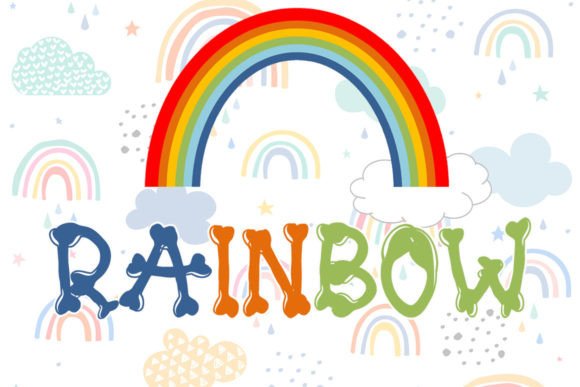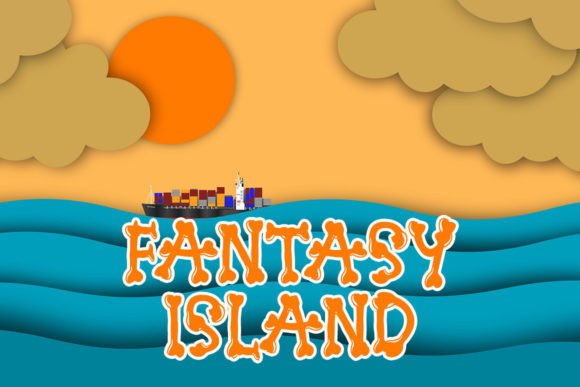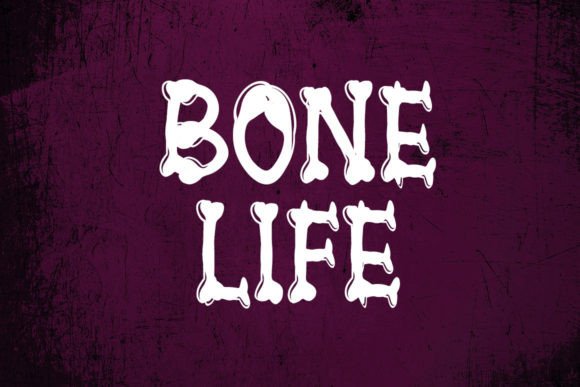
Discover the Joy of Design with Artistic Font
Have you ever stared at a blank canvas, waiting for inspiration to strike? The blank page can be intimidating, but what if I told you that the right font can spark a world of creativity? For designers, finding the perfect font can be the difference between a mediocre design and a masterpiece. This is where the Artistic Font comes in – a beautiful and sweet font that will add a touch of elegance to your projects.
This versatile font is perfect for both formal and informal projects, making it an invaluable asset for designers. By incorporating the Artistic Font into your designs, you can simplify your creative process and produce stunning results. With its fresh and clean look, the Artistic Font is sure to elevate your business and leave a lasting impression on your audience.
- Unique Characteristics: Features hand-drawn strokes and subtle texture, giving it a unique, artistic feel.
- Kerning and Ligatures: Includes advanced kerning and ligature features, ensuring smooth text flow and readability.
Designer Review: Artistic Font
Overall, I’d say that “Artistic Font” has some great qualities, but also some areas where it falls short. Let’s dive in and take a closer look.
- Unique flair: This font has a truly one-of-a-kind aesthetic that can add a touch of whimsy to your designs.
- Legibility: Despite its artistic flair, the font is still relatively easy to read, even at smaller sizes.
- Customization options: The font comes with a range of weights and styles, making it easy to customize to suit your design needs.
- Limited consistency: While the font has a clear artistic style, it can be a bit inconsistent in its application, with some letters or words looking slightly off.
- Not suitable for large blocks of text: Due to its artistic nature, this font is best used in short, focused sections of text, rather than large blocks.
- May require additional styling: Depending on the design, you may need to add additional styling or adjustments to ensure the font looks its best.
Overall, I think “Artistic Font” is a great addition to any designer’s toolkit, but it’s essential to understand its limitations and use it judiciously. With some careful application and styling, this font can add a real touch of personality to your designs.
Tips for Getting the Most Out of Artistic Font
For best results, use Artistic Font with bold or italic styles to add emphasis. Experiment with different font sizes and colors to create a visually appealing design. Consider pairing Artistic Font with a clean sans-serif font for a balanced look.
Artistic Font is ideal for creative projects such as:
- Event posters and flyers
- Personalized greeting cards
- Artistic typography and design projects
Alternatives to Artistic Font for Designers
Artistic Font, a script font with a touch of elegance, is great for creative projects. However, there are other options that can add a unique touch to your designs.